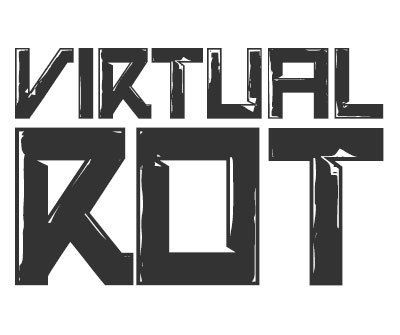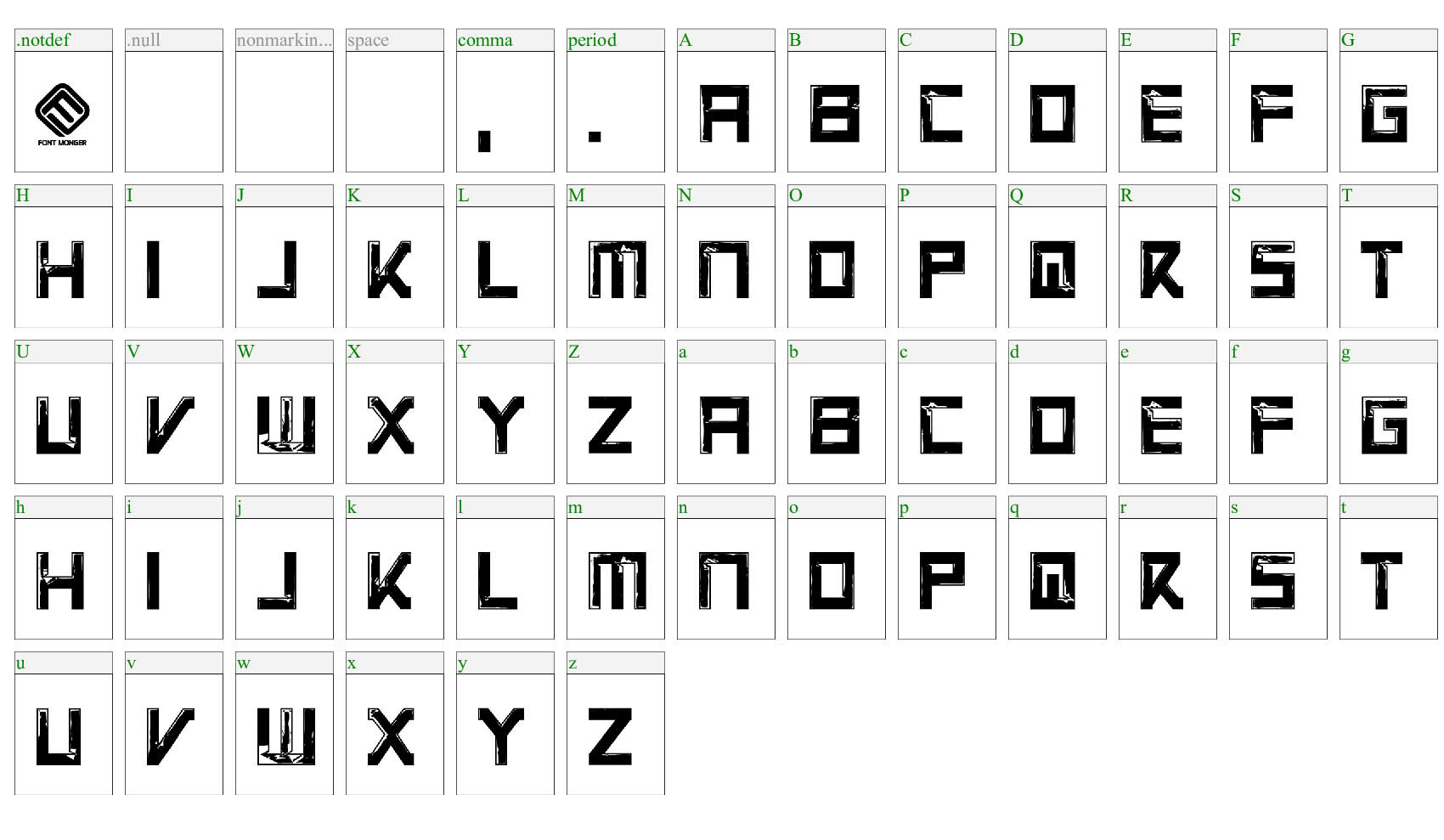
Lowercase: Same as uppercase
Numbers: Available upon request only
Accents: Available upon request only
Symbols: Limited, available upon request only
Theme: Square, eroded